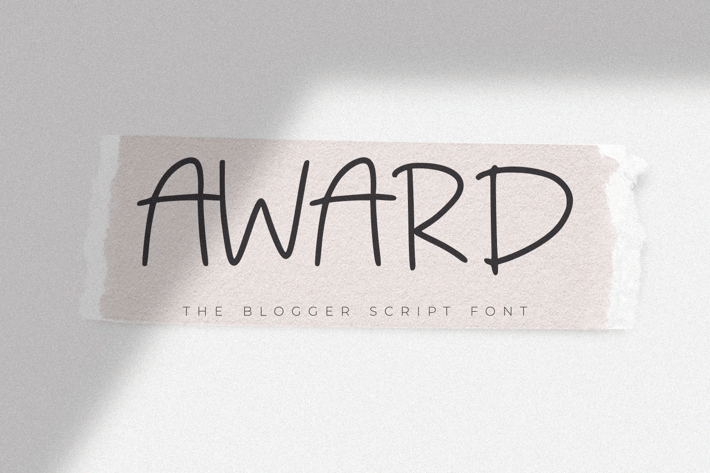
Award - The Blogger Script Font
Award - The Blogger Script Font, every single letter has been carefully crafted to make your text looks beautiful. it's perfect for logos, name cards, magazine layouts, invitations, headers, or even large-scale artwork.